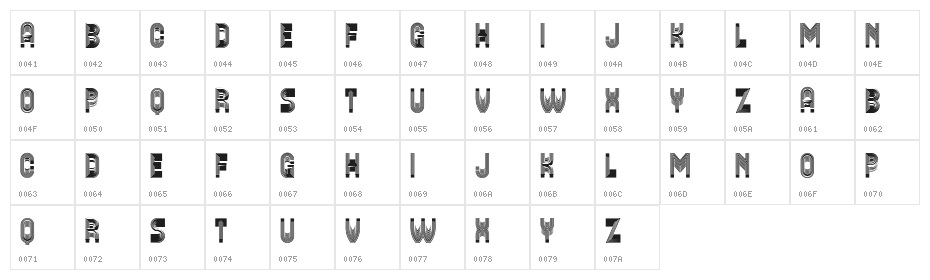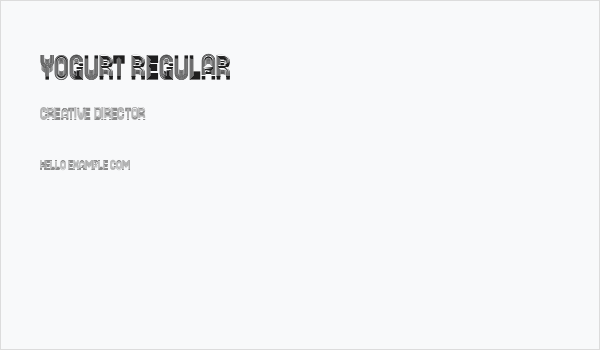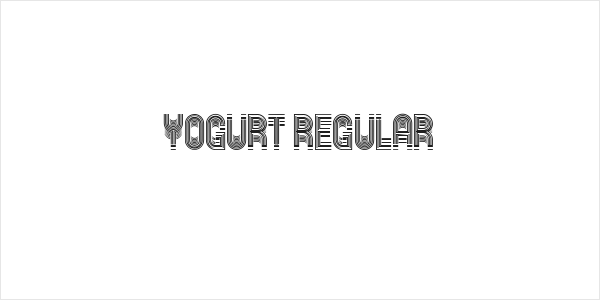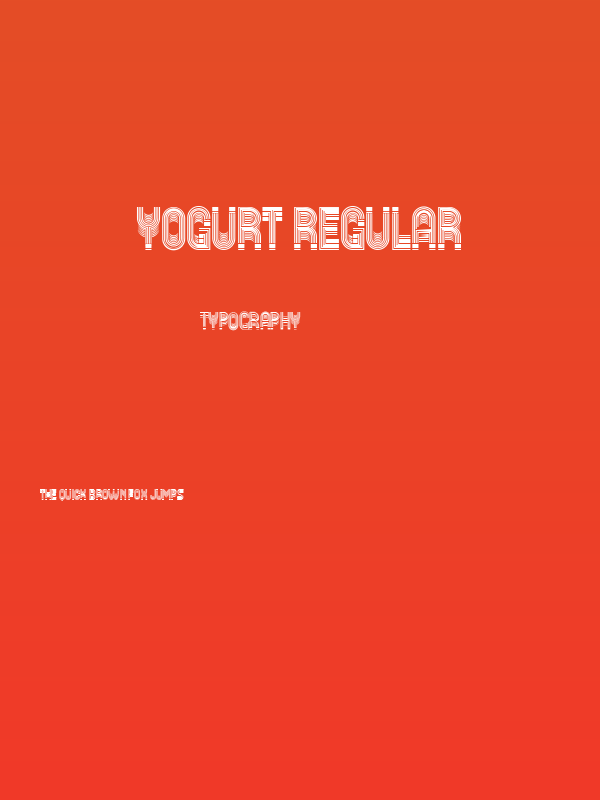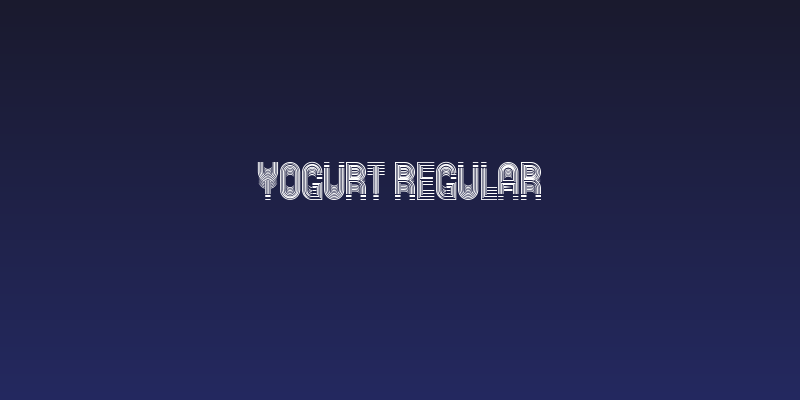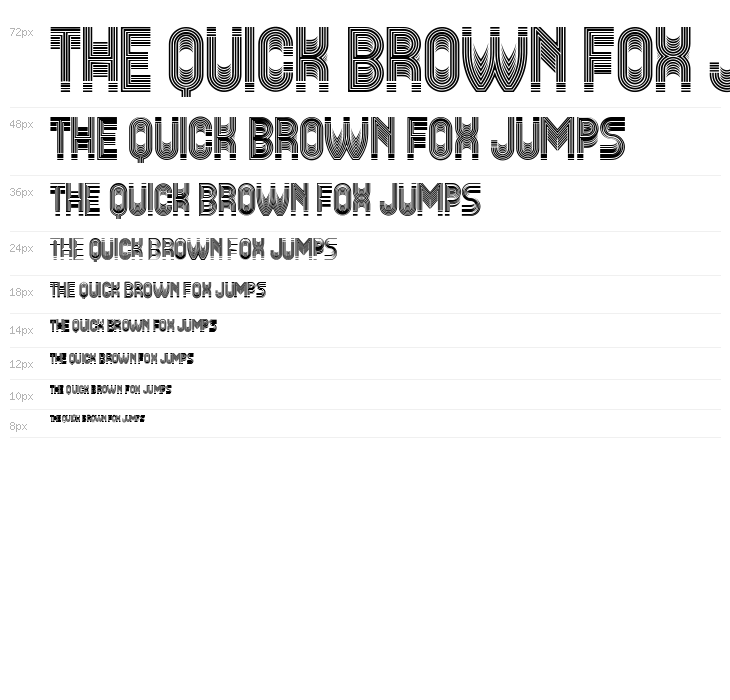
Yogurt Regular Font
Yogurt Regular Description
This font features a bold, geometric design with a unique layered effect. Each character is composed of multiple parallel lines that create a sense of depth and movement. The font is highly decorative, making it ideal for eye-catching designs. The uppercase letters are particularly striking, with their intricate patterns and strong presence. The overall appearance is modern and artistic, suitable for projects that require a bold statement.
| Proposed Projects | Ideal for posters, album covers, branding, and any project requiring a bold, artistic touch. |